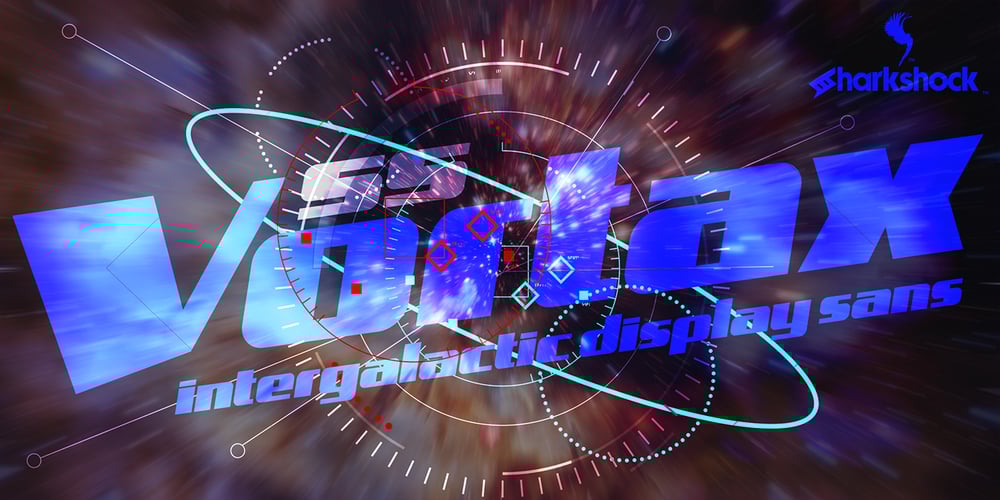
SS Vortax Font Family was designed by Dennis Ludlow and published by Sharkshock. SS Vortax contains 2 styles and family package options. SS Vortax is a space-age themed display sans featuring broad strokes and tight spacing. This close relative of Galaxus features imposing Capitals with some sharp slants in the Italic version. It’s designed to cover horizontal blocks effortlessly. Most characters have curves on the exterior with right angles on the interior. This dynamic contrast makes it a great choice for a video game/app, toy packaging, or sports logo. SS Vortax is equipped with European accents for international support. Please check glyph maps for all supported characters.